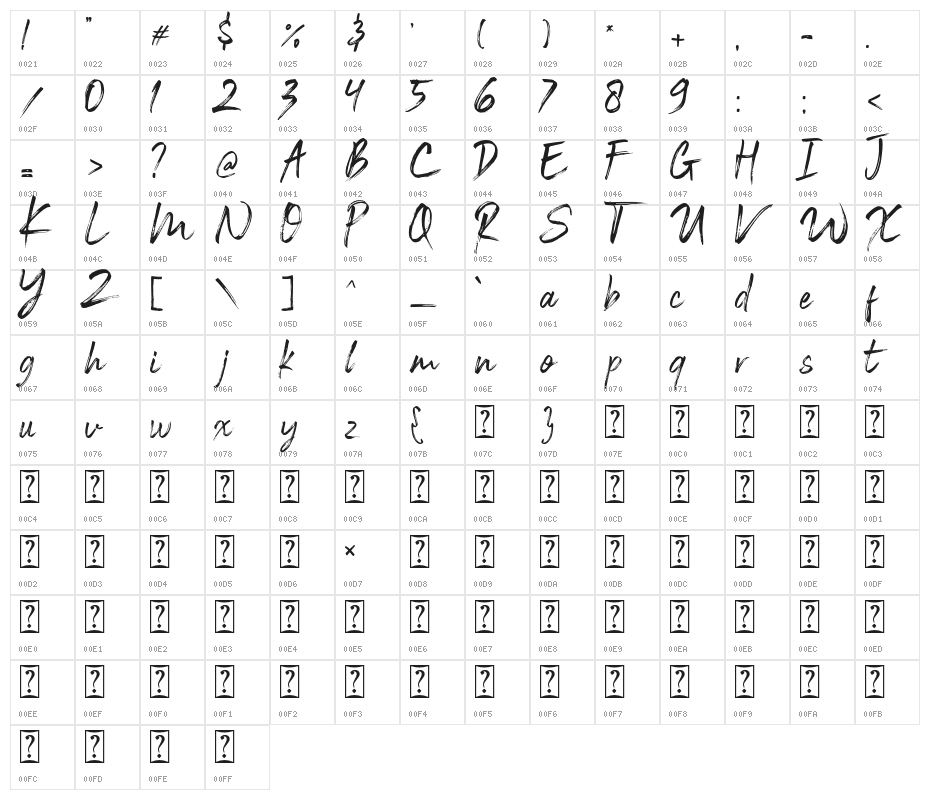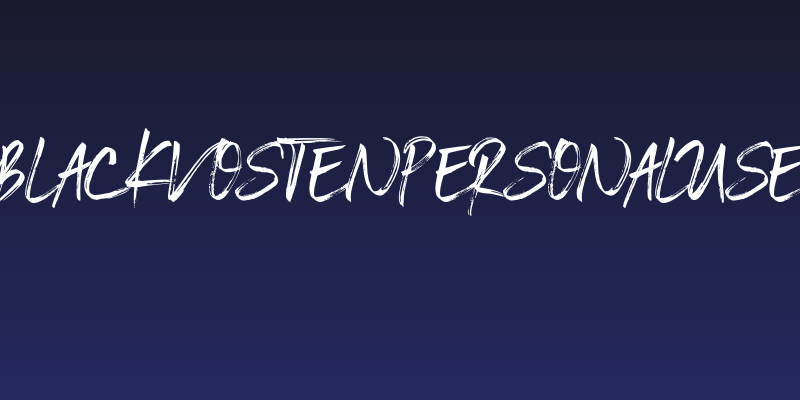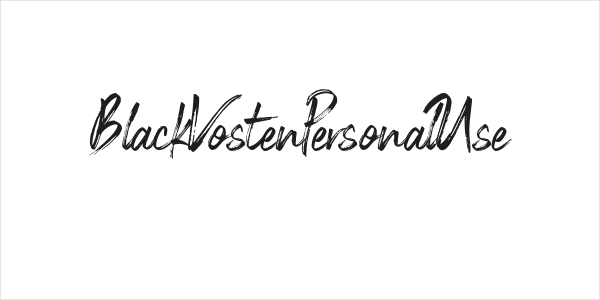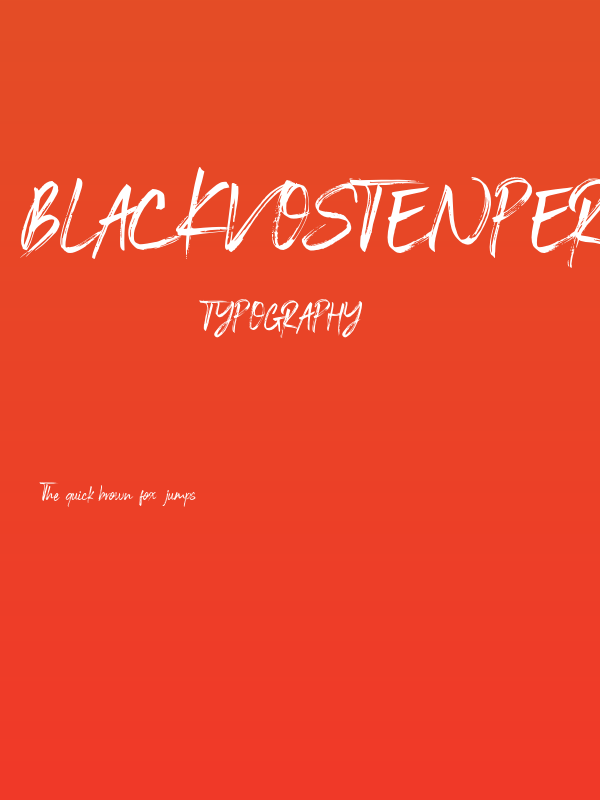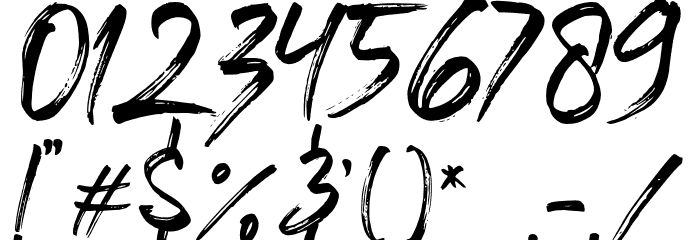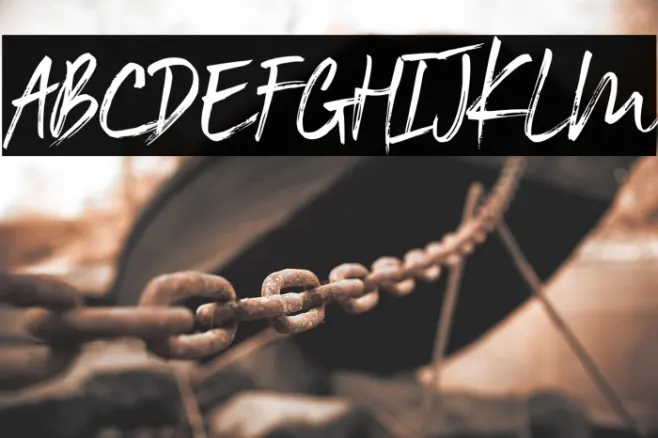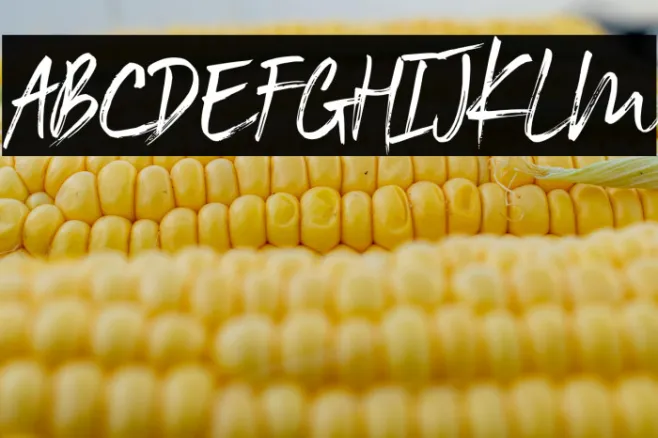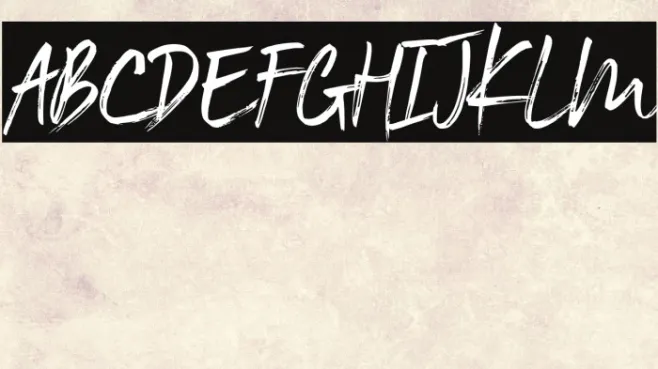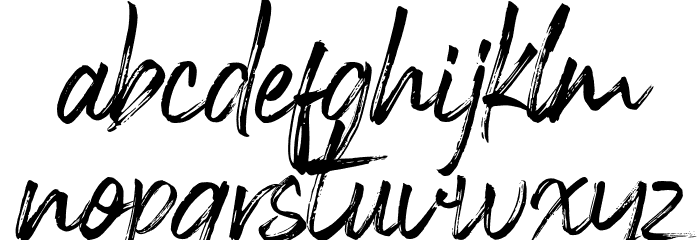
BlackVostenPersonalUse Font
BlackVostenPersonalUse Description
This font exudes a dynamic and energetic style, characterized by its brush-like strokes and fluid, cursive design. The letters are crafted with a sense of motion, giving each character a unique and lively appearance. The uppercase and lowercase letters maintain a consistent flow, while the numbers and special characters complement the overall aesthetic. The strokes vary in thickness, adding a sense of depth and texture to the font. This design is perfect for projects that require a bold and artistic touch, capturing attention with its expressive and modern flair.